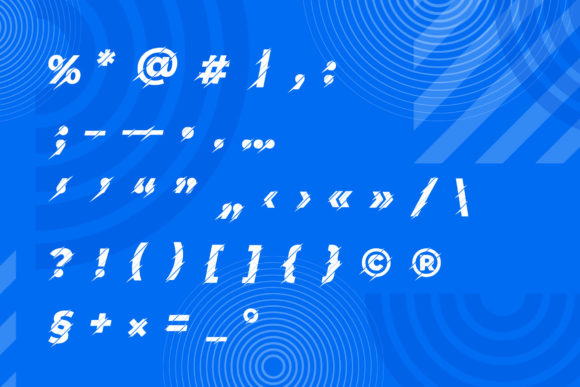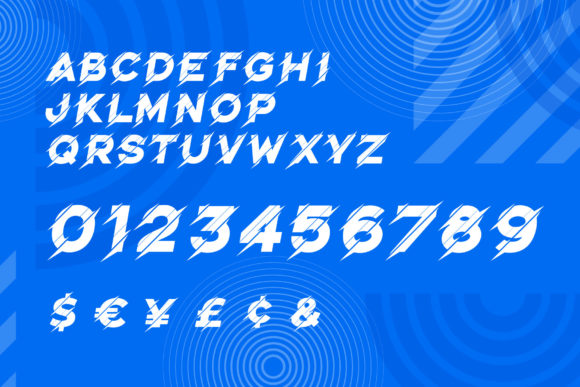
Introduction to Mype Font
Have you ever been working on a creative project, pouring your heart and soul into every detail, only to feel like something is missing? That’s when you stumble upon the perfect design resource – a font that elevates your entire project and gives it that extra oomph. For designers, finding the right font can be a game-changer, and that’s where Mype Font comes in.
With its bold and assertive style, Mype Font is the perfect addition to any crafting idea, from cards and branding to labels and beyond. Whether you’re working on a personal project or a professional one, this high-quality font is sure to impress. And the best part? You can download it for free, making it a valuable asset for any designer looking to take their work to the next level.
Key Features of Mype Font
- Unique characteristics include a modern and sleek aesthetic, making it perfect for branding, logos, and typography-based designs.
Honest Review: Mype Font
As a designer, I’m always on the lookout for new and exciting design resources to enhance my creative projects. Recently, I stumbled upon Mype Font, and I must say it’s been a game-changer.
What works well: ✨ The font is incredibly versatile, with a wide range of styles and weights to choose from. I’ve used it for everything from logos to brochures, and it always looks professional and polished. The transparent background feature is also a huge plus, making it easy to layer over other design elements.
- Wide range of styles and weights
However, I did encounter a few limitations: ⚠️ The font can be a bit overwhelming to navigate, especially for beginners. There are a lot of options to choose from, which can make it difficult to decide on the right one. Additionally, the font doesn’t come with a built-in font editor, which can be a drawback for those who need more control over their design.
Overall, I’m impressed with Mype Font and would highly recommend it to fellow designers. With a little practice and patience, you’ll be able to unlock its full potential and take your creative projects to the next level.
Mype Font is a high-quality design resource that offers a wide range of fonts perfect for creative projects. With a transparent background, Mype Font can be easily integrated into various design platforms.
To get the most out of Mype Font, try combining it with other design elements, such as graphics and images, to create a unique and eye-catching design. You can also experiment with different font sizes, colors, and styles to add depth and interest to your design.
Common Use Cases for Mype Font
Mype Font is perfect for a wide range of creative projects, including business cards, brochures, posters, and social media graphics. With its high-quality design and transparent background, Mype Font is a great resource for designers who want to create professional-looking designs without breaking the bank.